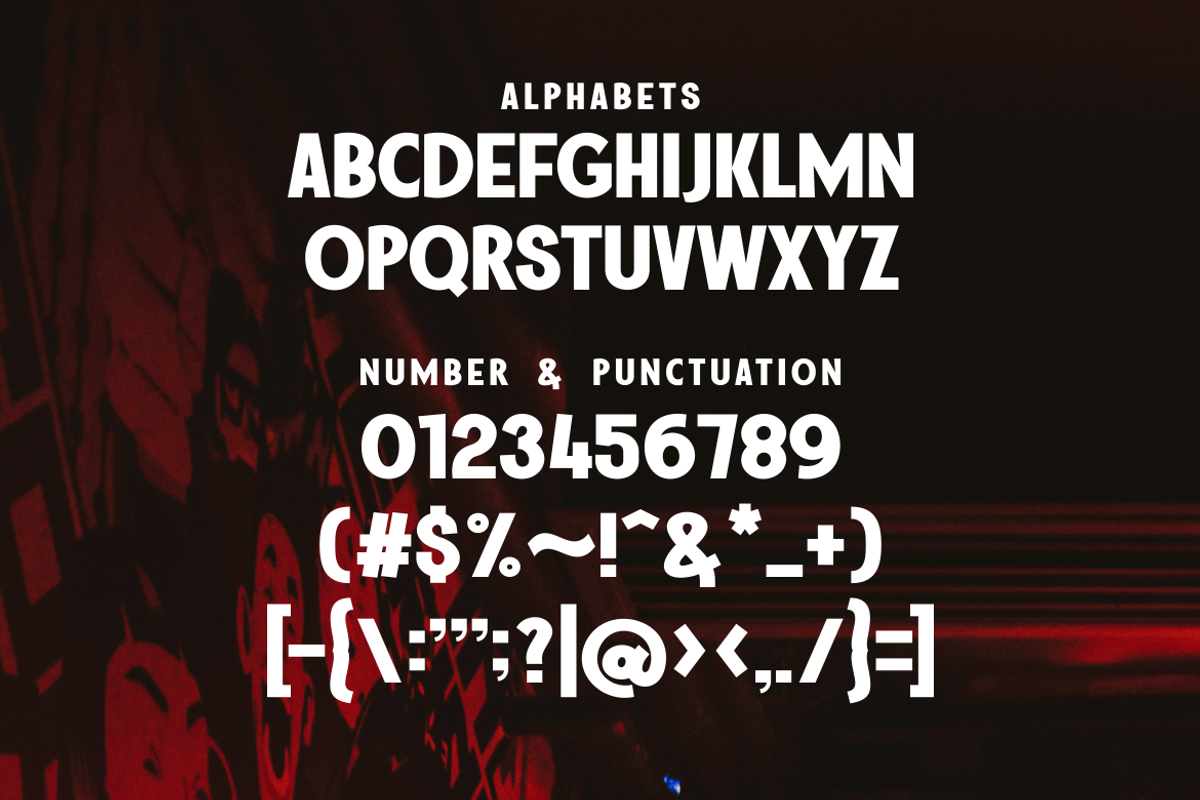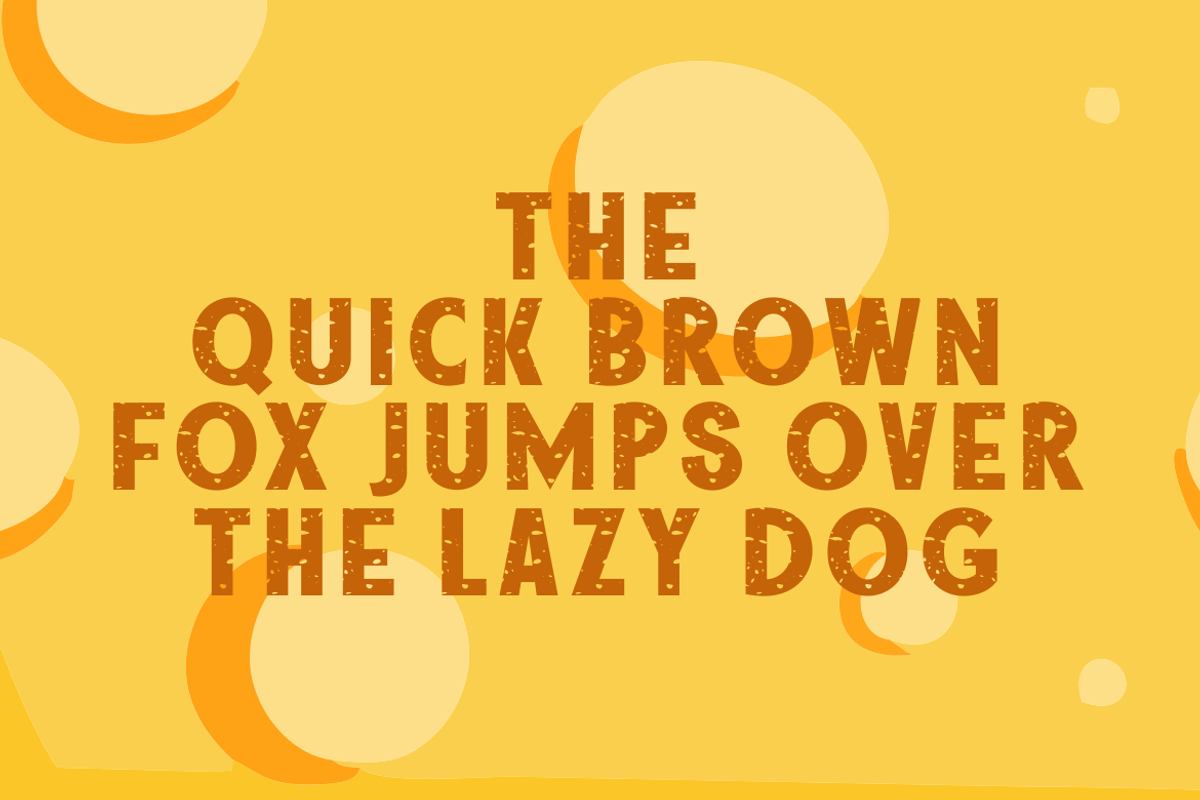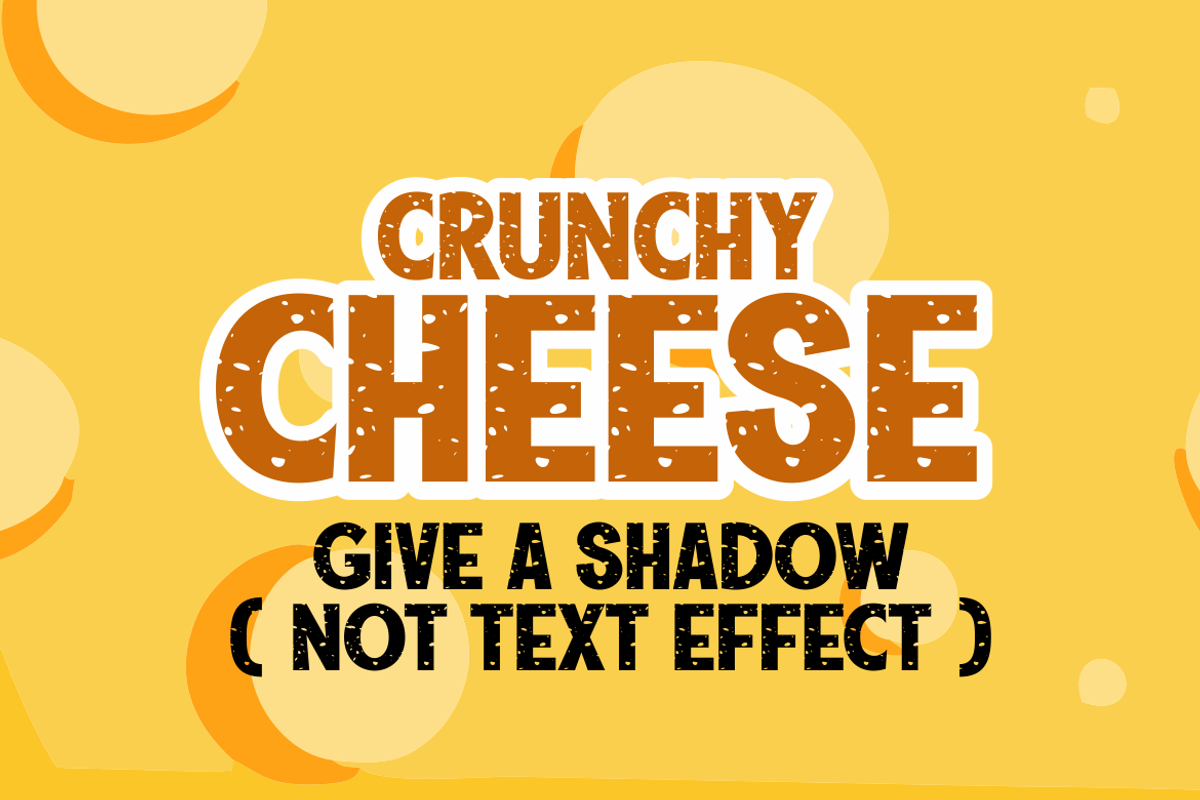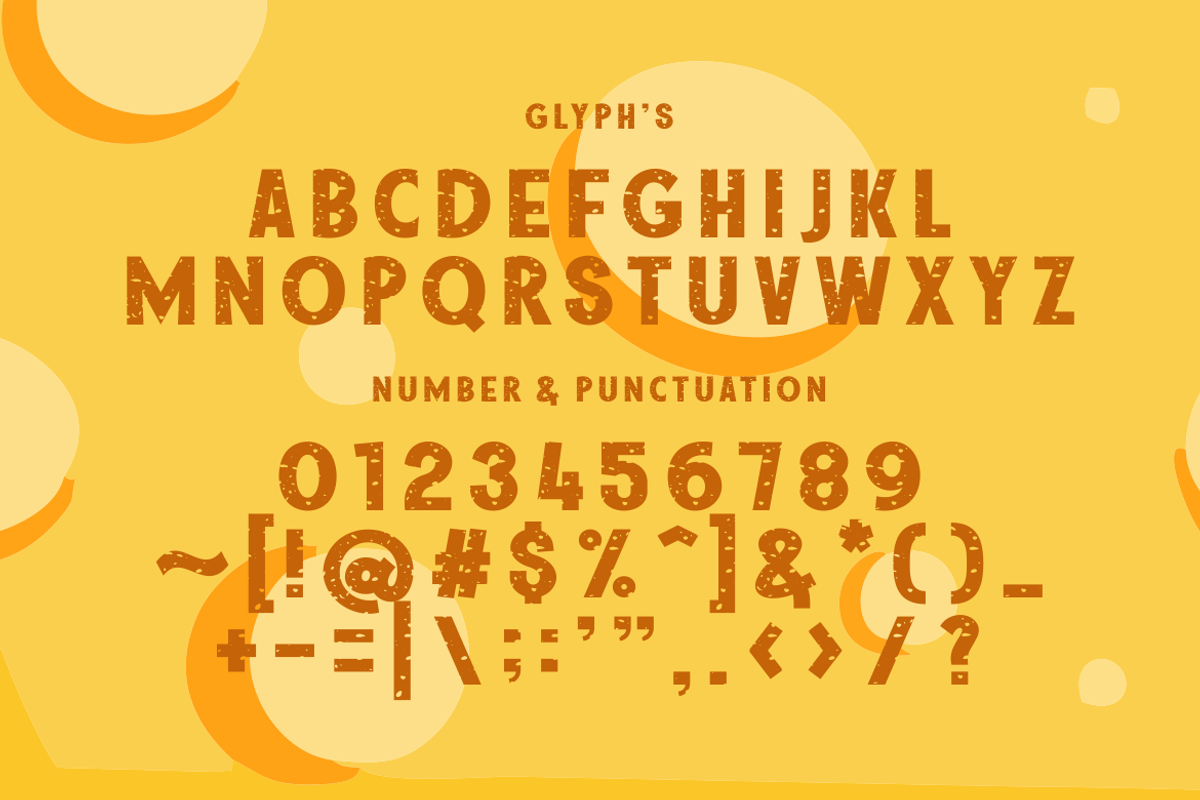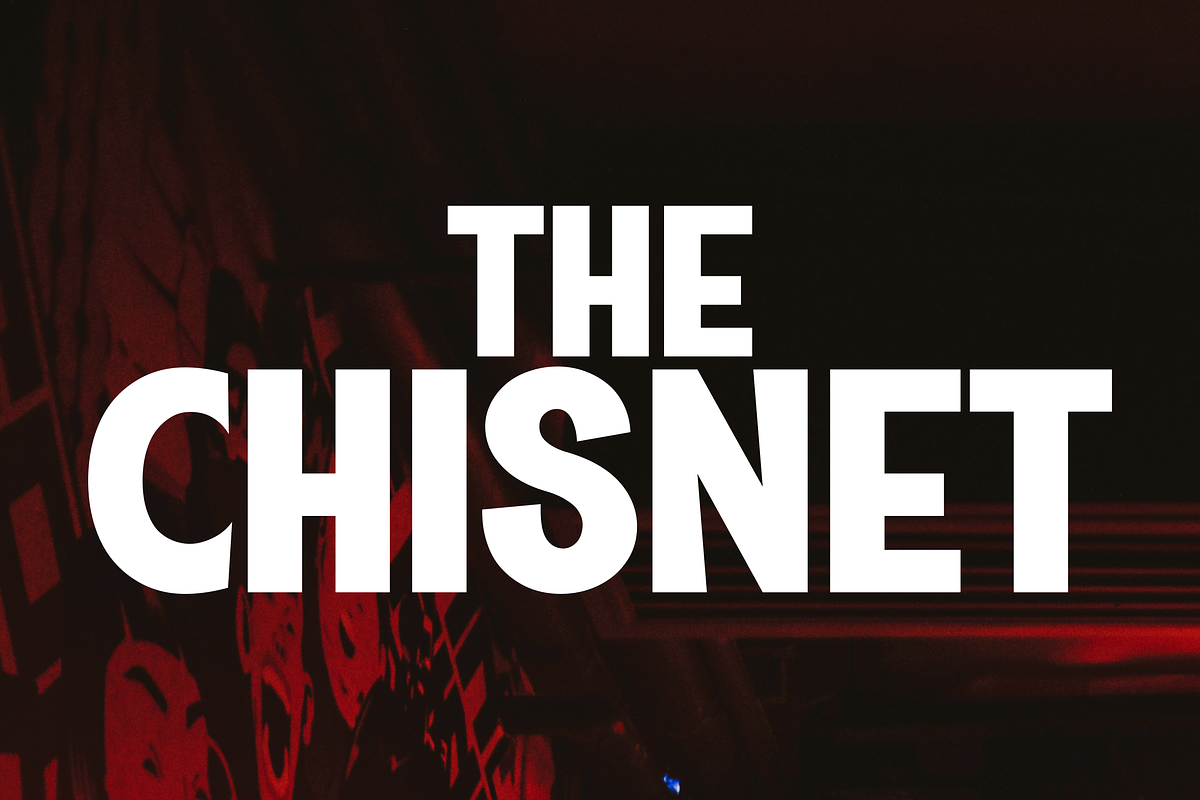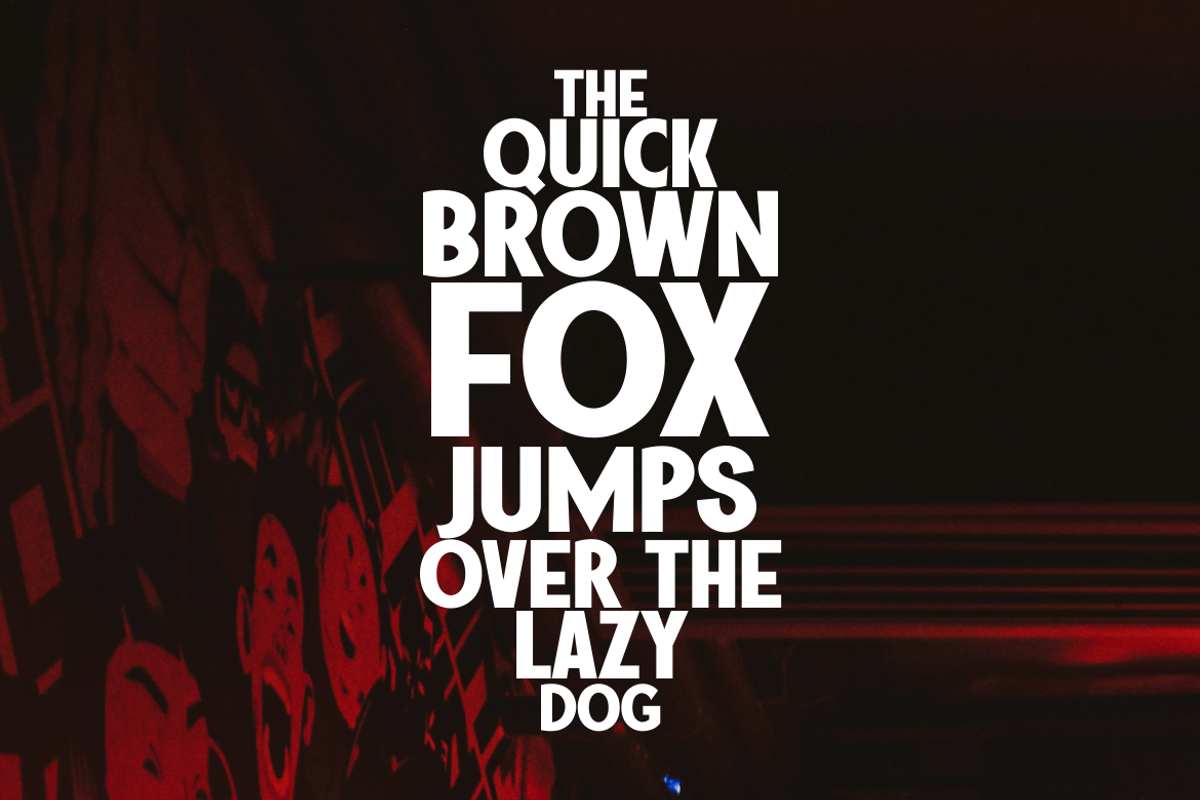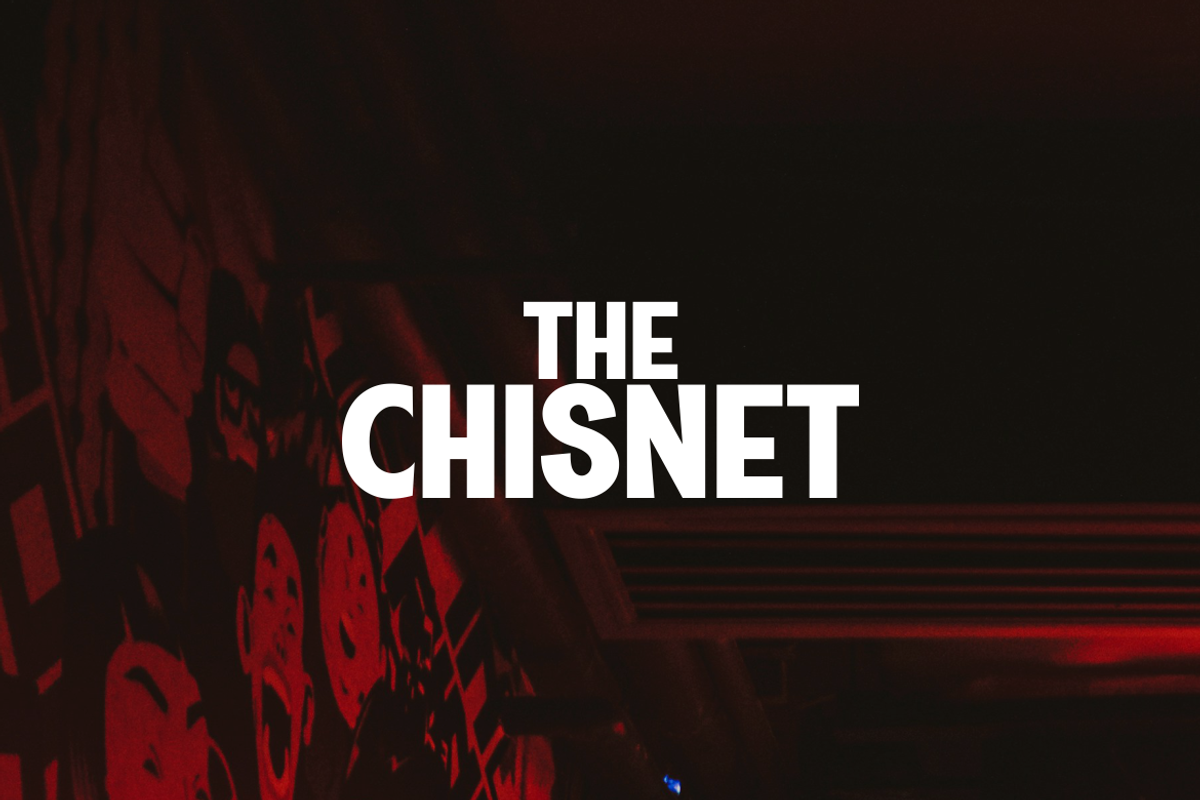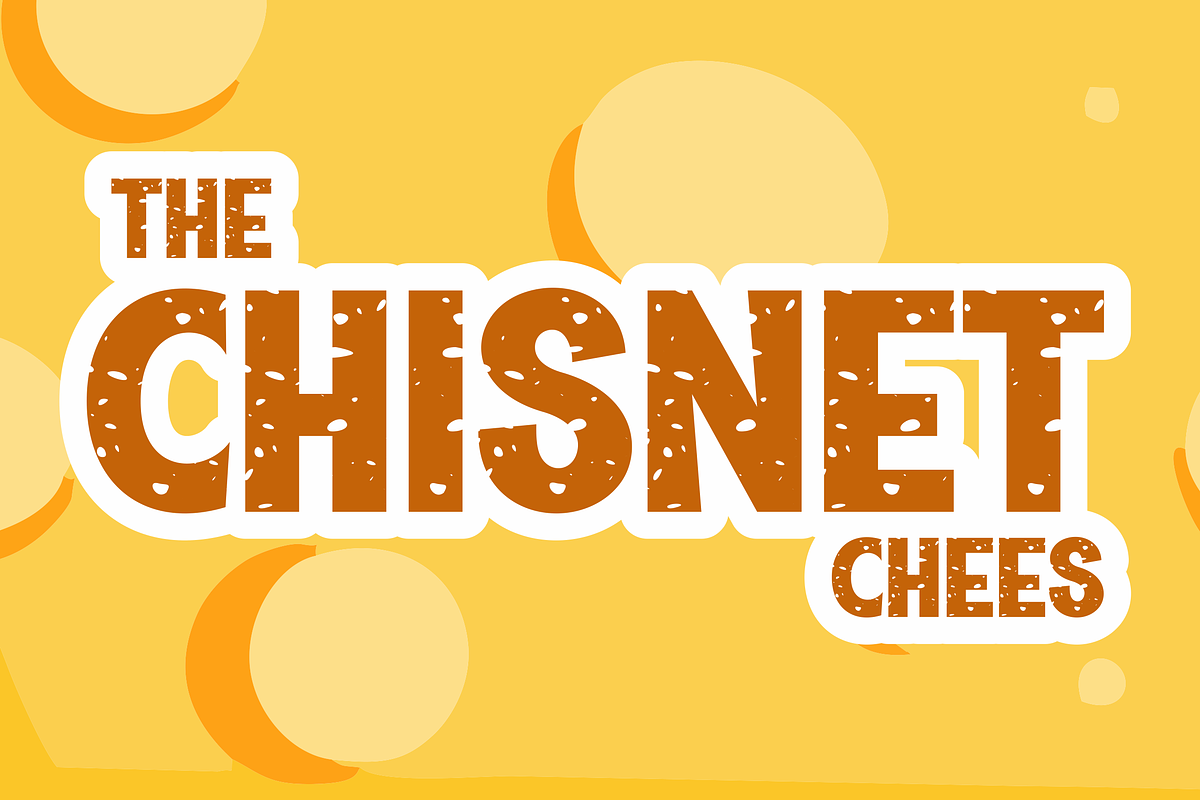
The Chisnet 2 Style Cheese Edition
Introducing The Chisnet, a robust and sturdy font that commands attention. With its clean, muscular lines and balanced composition, The Chisnet perfectly marries strength and precision. Whether it graces the glossy pages of a magazine or takes center stage in the advertising realm, it cultivates harmony in your layout, bringing an unrivaled level of sophistication to your creative projects.